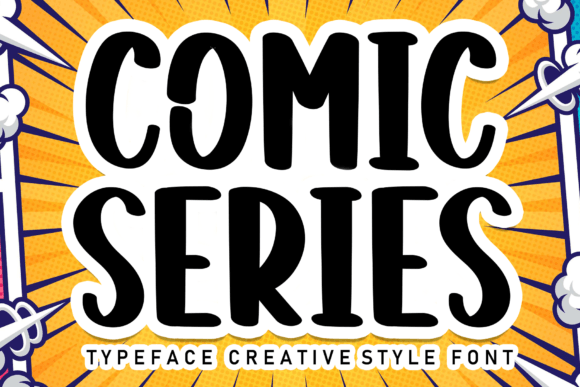
Introducing Comic Series Font: The Ultimate Handwritten Display Font for Fun and Festive Designs
Are you looking for a font that can add a touch of whimsy and playfulness to your designs? Look no further than Comic Series Font, a sweet and friendly handwritten display font that’s perfect for creating fun and festive designs. In this article, we’ll take a closer look at Comic Series Font, its features, and how you can use it to elevate your designs.
What is Comic Series Font?
Comic Series Font is a handwritten display font that’s designed to bring a smile to your face. With its cute and fun design, this font is ideal for writing wedding invitations, cards, or any other design that might need a fun touch. Whether you’re a designer, a DIY enthusiast, or a business owner looking to create engaging content, Comic Series Font is the perfect choice.
Key Features of Comic Series Font
- Handwritten Design: Comic Series Font has a unique handwritten design that’s both sweet and friendly.
- Cute and Fun: This font is perfect for designs that require a playful touch, such as wedding invitations, birthday cards, and social media posts.
- Display Font: Comic Series Font is a display font, making it perfect for headlines, titles, and short paragraphs of text.
- Easily Readable: Despite its playful design, Comic Series Font is easily readable, making it perfect for designs that require a clear and concise message.
Use Cases for Comic Series Font
Comic Series Font is a versatile font that can be used in a variety of design projects. Here are some use cases to get you started:
- Wedding Invitations: Add a touch of whimsy to your wedding invitations with Comic Series Font. Its cute and fun design makes it perfect for wedding announcements, save-the-date cards, and thank-you notes.
- Cards and Stationery: Comic Series Font is ideal for creating fun and festive cards, including birthday cards, get-well cards, and holiday cards.
- Social Media Posts: Add a playful touch to your social media posts with Comic Series Font. Use it to create engaging headlines, captions, and quotes that will grab the attention of your followers.
- Party Decorations: Use Comic Series Font to create fun and festive party decorations, including banners, signs, and invitations.
Tips for Using Comic Series Font
Here are some tips for using Comic Series Font in your designs:
- Use it Sparingly: Comic Series Font is a display font, so use it sparingly to create emphasis and visual interest.
- Pair it with Other Fonts: Pair Comic Series Font with other fonts to create visual interest and add depth to your designs.
- Experiment with Colors: Comic Series Font looks great in a variety of colors, so experiment with different colors to find the one that works best for your design.
- Keep it Simple: Keep your design simple and clean to ensure that Comic Series Font is the focal point.
Benefits of Using Comic Series Font
Here are some benefits of using Comic Series Font in your designs:
- Unique Design: Comic Series Font has a unique design that will set your designs apart from the rest.
- Easily Readable: Despite its playful design, Comic Series Font is easily readable, making it perfect for designs that require a clear and concise message.
- Versatile: Comic Series Font is a versatile font that can be used in a variety of design projects, from wedding invitations to social media posts.
- Fun and Festive: Comic Series Font adds a touch of whimsy and playfulness to your designs, making it perfect for creating fun and festive designs.
In conclusion, Comic Series Font is a sweet and friendly handwritten display font that’s perfect for creating fun and festive designs. With its cute and fun design, easily readable text, and versatility, Comic Series Font is the perfect choice for designers, DIY enthusiasts, and business owners looking to create engaging content. Whether you’re creating wedding invitations, cards, or social media posts, Comic Series Font is sure to add a touch of whimsy and playfulness to your designs.